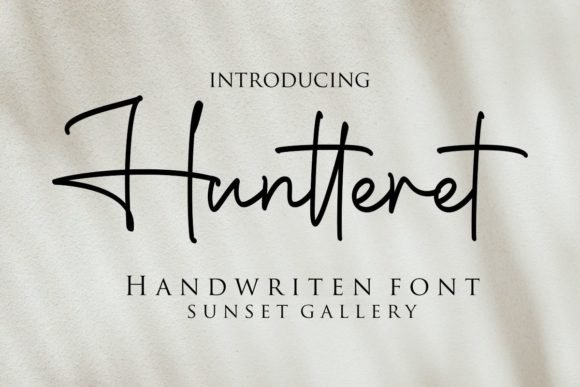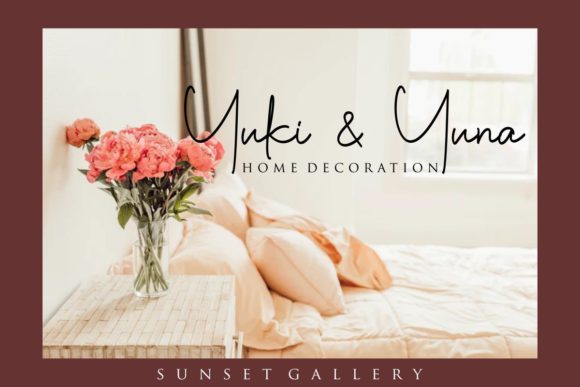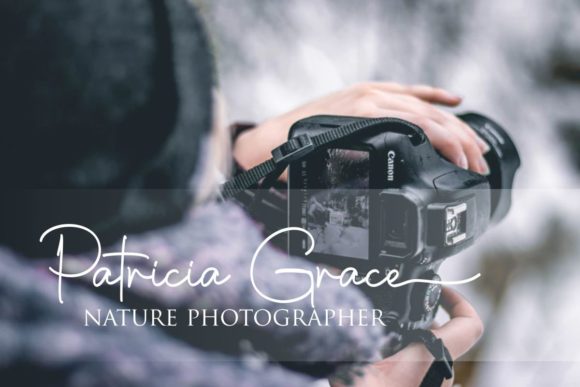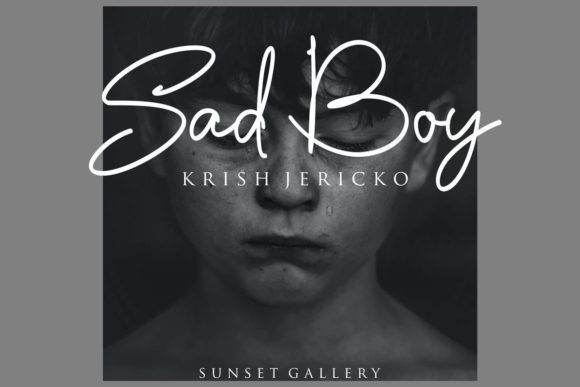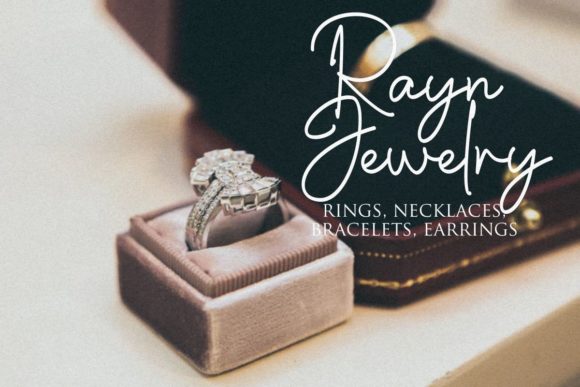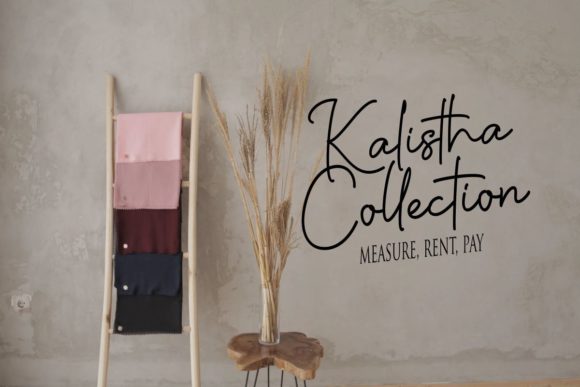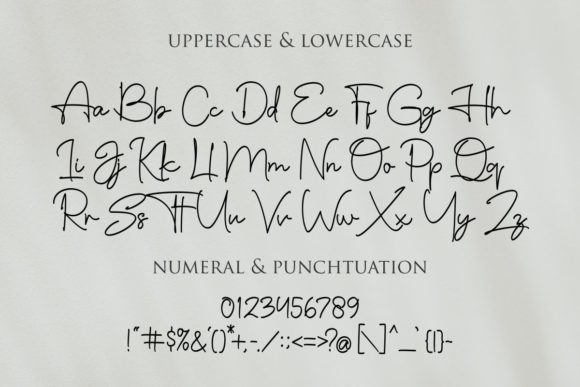
Discover the Delicate Charm of Huntteret Font
Have you ever stumbled upon a font that makes your design instantly feel more refined and sophisticated? That’s exactly what happened to me when I first laid eyes on the Huntteret Font. Its elegant script style and delicate flair have a way of elevating any project from ordinary to extraordinary.
Huntteret Font was specifically designed to bring a touch of class and refinement to your designs. With its lovely and intricate details, it’s perfect for creatives who want to add a bit of whimsy and personality to their work. As a designer, you’ll appreciate the value of this font, particularly its PUA encoding, which makes it easy to access all the amazing glyphs and ligatures.
Huntteret Font Key Features
- Unique Characteristics: Huntteret Font features a unique blend of rustic and modern elements, making it perfect for creating a distinctive visual identity.
- Font Style: The font family includes multiple styles, such as regular, bold, italic, and bold italic, offering users a range of options for customization.
Huntteret Font Review
I recently had the chance to work with the Huntteret font, and I must say, it’s an interesting choice. Let’s dive into what I liked and what I didn’t.
- Unique Style: The Huntteret font has a distinctive, modern aesthetic that can add a touch of sophistication to any design.
- High-Quality Rendition: The font is available in various weights and styles, making it versatile for different design needs.
- Professional Look: It’s perfect for creating a polished and professional look in documents, presentations, and websites.
- Limited Expressiveness: The font’s modern style might not be suitable for projects requiring a more playful or whimsical tone.
- No Clear Distinctiveness: Some users might find the font’s style too generic, making it harder to stand out in crowded designs.
- Font Size Limitations: The font’s larger sizes might appear less clear or pixelated, which could be a concern for certain design applications.
Overall, the Huntteret font is a solid choice for those seeking a modern and professional aesthetic. However, it might not be the best fit for projects requiring a more creative or playful approach. With proper use and understanding of its limitations, this font can be a valuable addition to any designer’s toolkit.
For a professional look, pair the Huntteret font with a clean and modern background design.
For a striking effect, use the Huntteret font in bold and italics to create a sense of drama and emphasis.
For a visually appealing presentation, use the Huntteret font in combination with images and graphics to create a cohesive design.
The Huntteret font is ideal for:
- Restaurant and cafe menus
Remember to use the Huntteret font in moderation and balance it with other fonts and design elements to avoid visual overload.
Alternatives to Huntteret Font
The Great Vibes Font is a modern, elegant script font. It’s ideal for use in titles, headings, and other design elements where a touch of sophistication is desired. Great Vibes Font is more cursive and has more flair compared to Huntteret Font, making it suitable for creative and artistic projects.
The Alex Brush Font is a beautiful, handwritten script font. It’s perfect for use in invitations, wedding designs, and other creative projects where a personal touch is required. Alex Brush Font is more fluid and organic compared to Huntteret Font, making it ideal for projects that require a sense of movement and flow.
The Carolyna Pro Font is a modern, elegant script font with a touch of sophistication. It’s ideal for use in titles, headings, and other design elements where a sense of luxury is desired. Carolyna Pro Font is more refined and polished compared to Huntteret Font, making it suitable for high-end projects and branding.